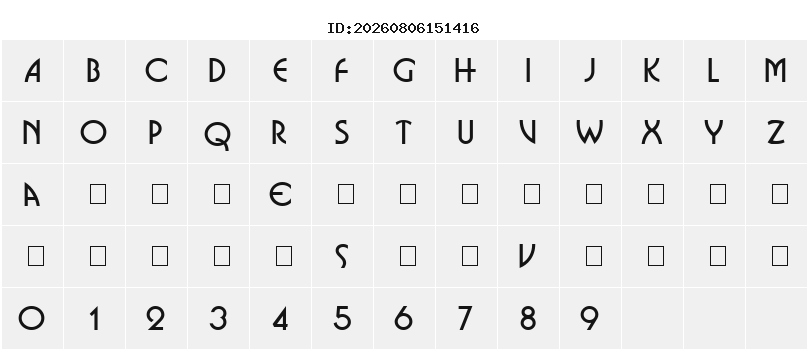
Omnibus Preview
• Font Name: Omnibus
• Font ID: FontMonger:Busorama
• Full Font Name: Omnibus
• PostScript Name: Busorama
• Character Count: 95
About Omnibus.ttf
Omnibus.ttf is a modern, elegant sans-serif font designed for ultimate readability and visual harmony. Perfect for branding, headlines, web design, and print materials.